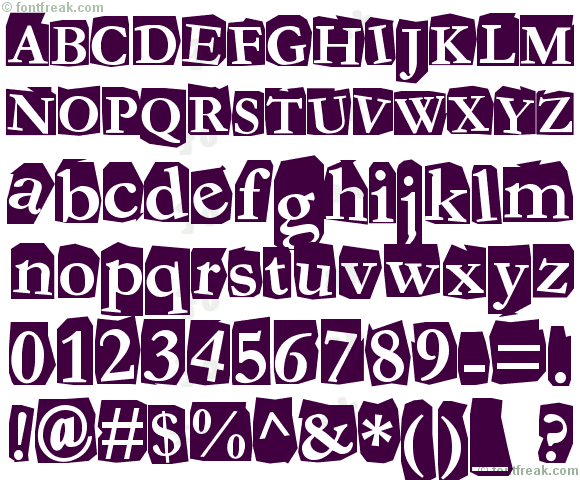
Fanzine
About Fanzine
Fanzine by Digital Graphic Labs is a distinctive display font that captures the essence of playful creativity. Released in 1998, this freeware font is characterized by its bold, irregular shapes and a whimsical flair, making it an ideal choice for projects that demand attention and personality. The strokes exhibit a varied weight, creating a dynamic contrast that adds to its unique charm. The letterforms are spaced generously, allowing for easy readability while still maintaining a fun, informal aesthetic.
Fanzine is perfect for a wide range of applications. Its engaging style makes it an excellent choice for zines, which align perfectly with its name, as well as for eye-catching movie posters that aim to evoke excitement. Additionally, it can add a light-hearted touch to restaurant menus or promotional materials for events like music festivals and art shows. Graphic designers will find Fanzine particularly appealing for projects aimed at youth audiences or those seeking a retro vibe. Small business owners looking to create memorable branding elements will also benefit from its unique characteristics.
What sets Fanzine apart is its ability to convey a sense of community and creativity, making it a standout choice in the world of display fonts. Its playful nature and distinctive design elements resonate with audiences, ensuring that any project featuring Fanzine will leave a lasting impression.